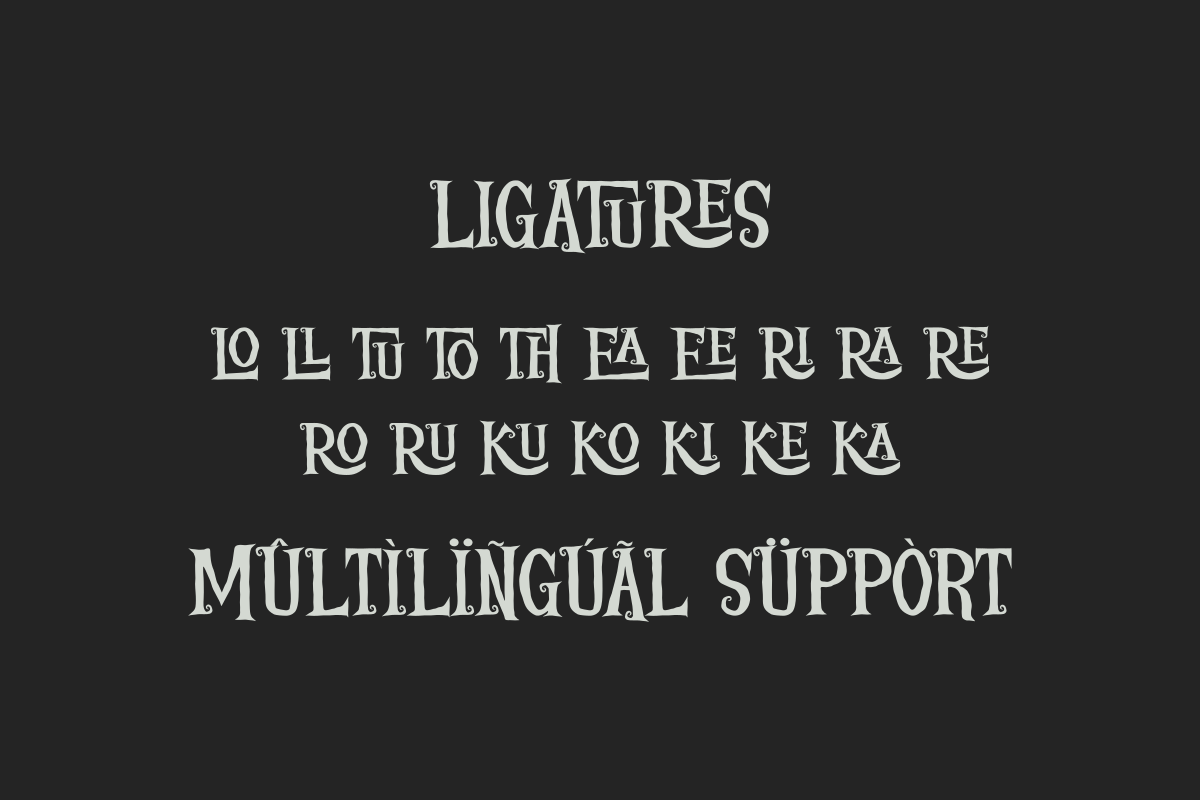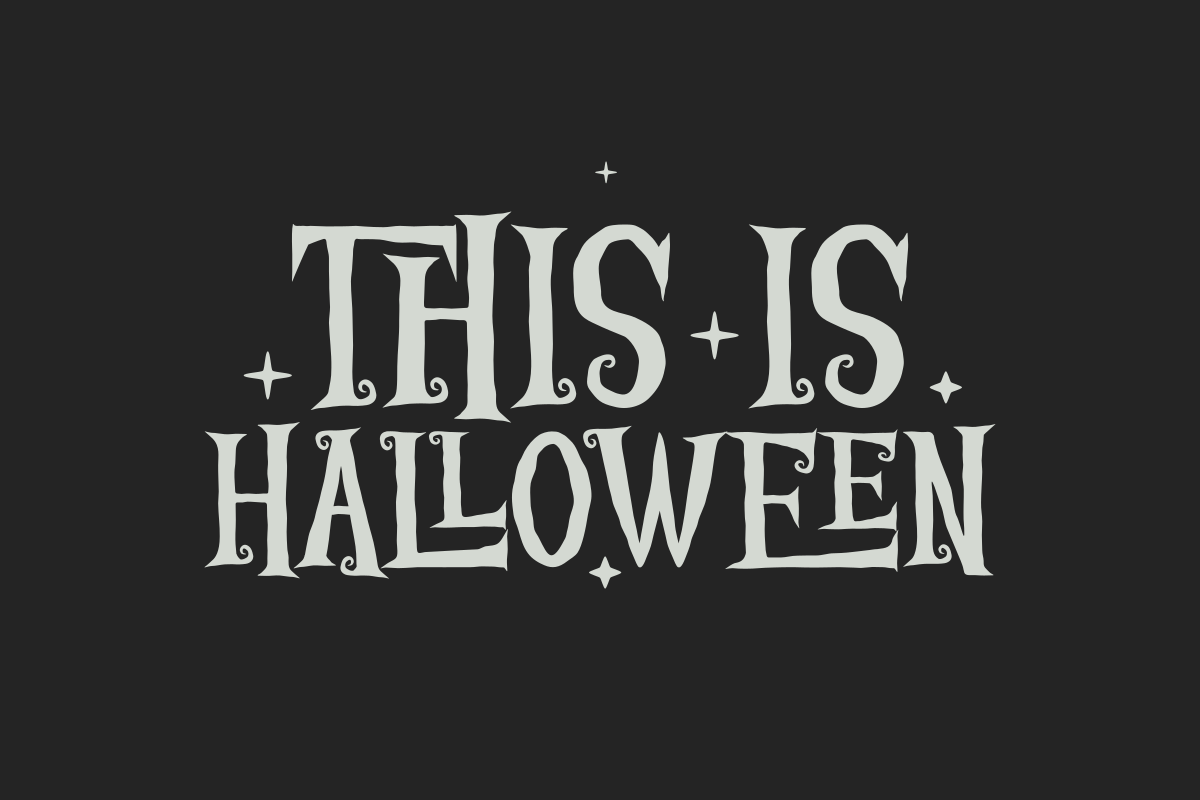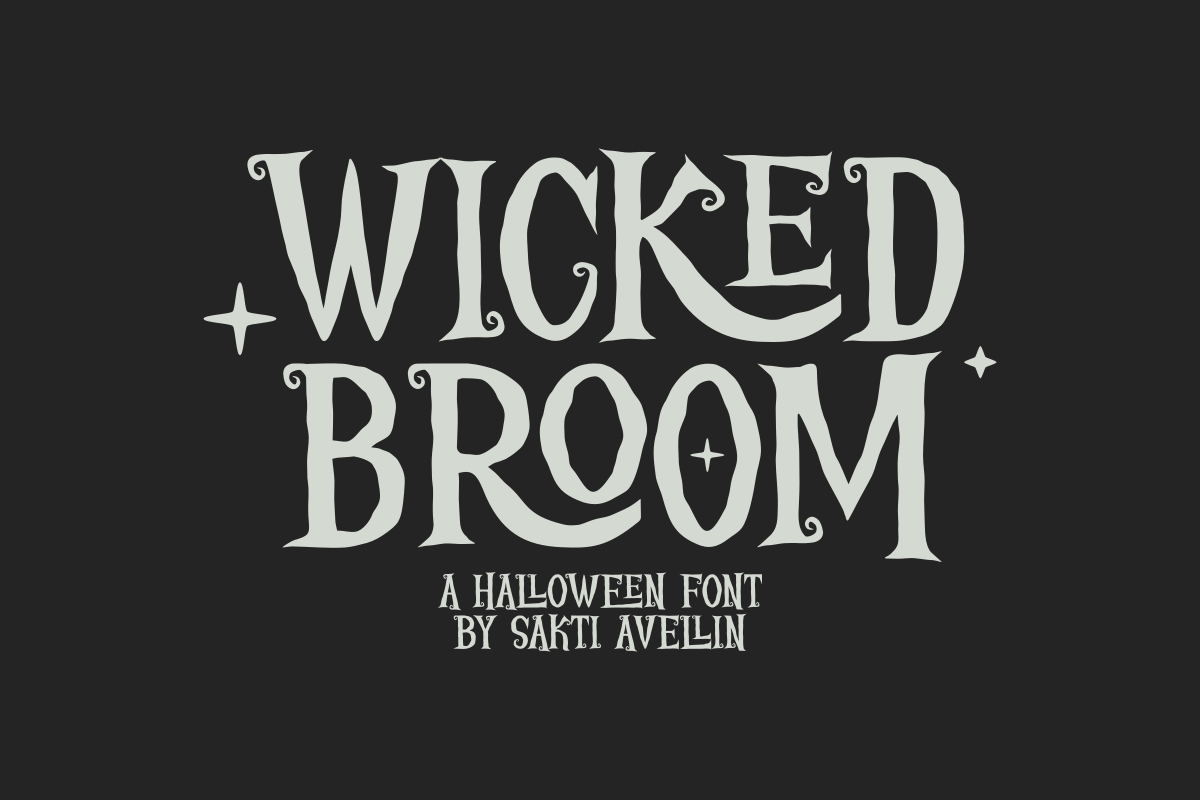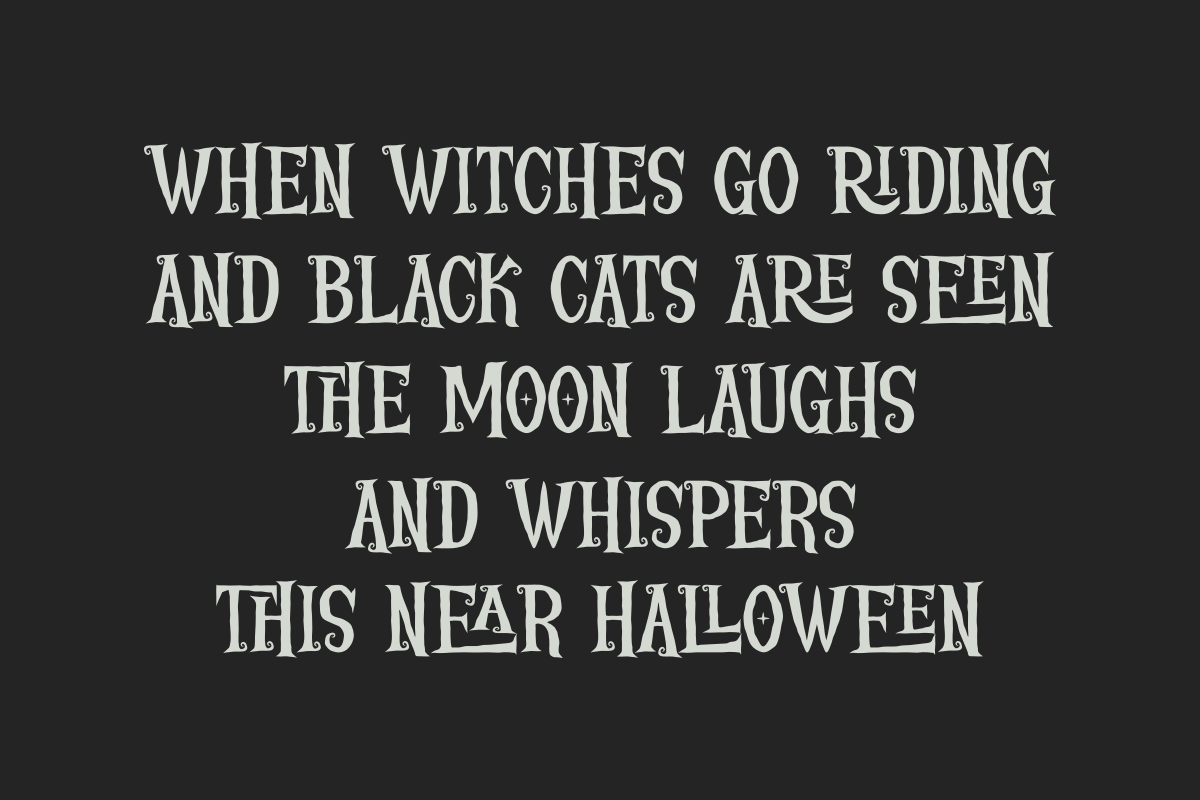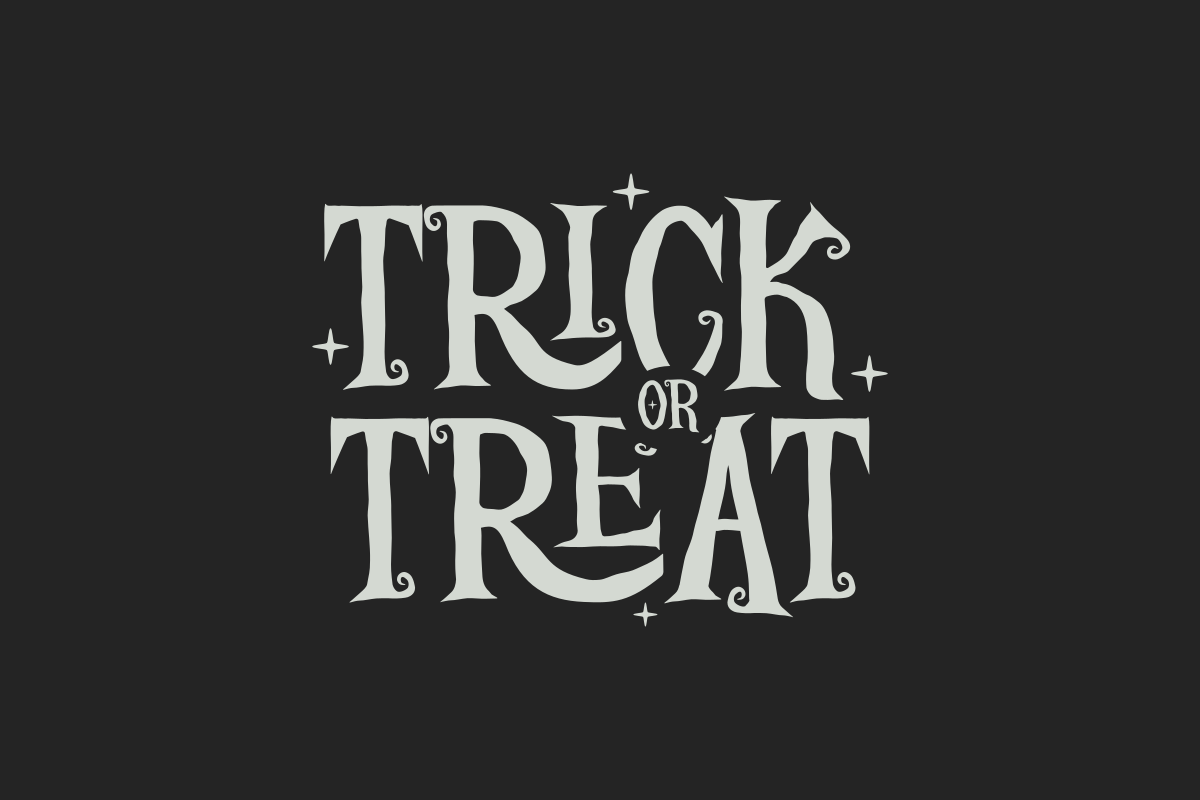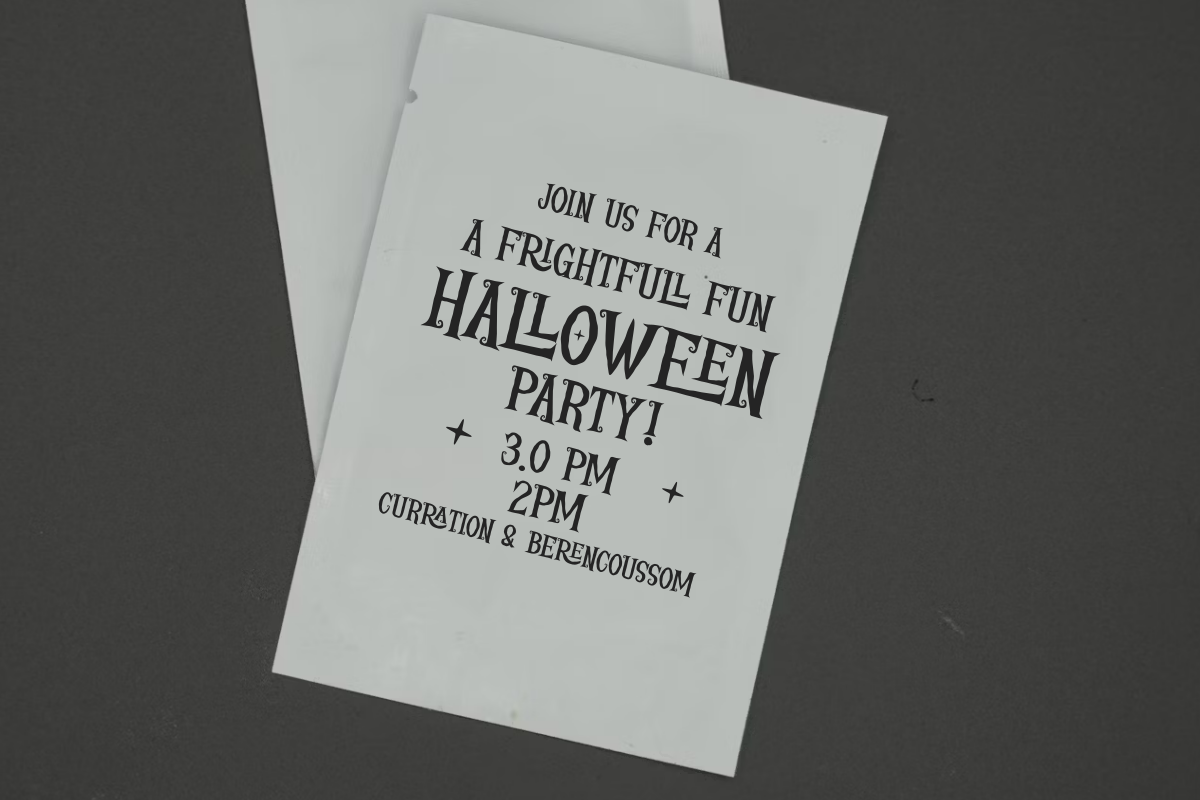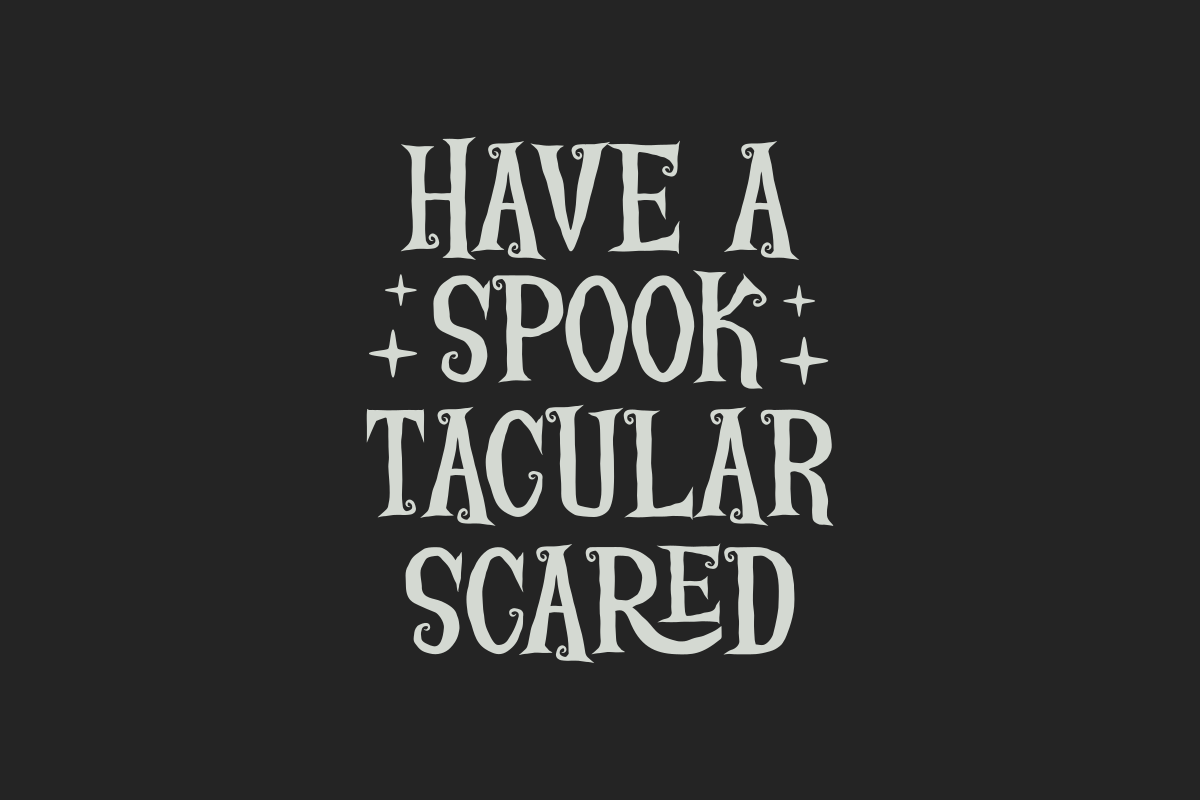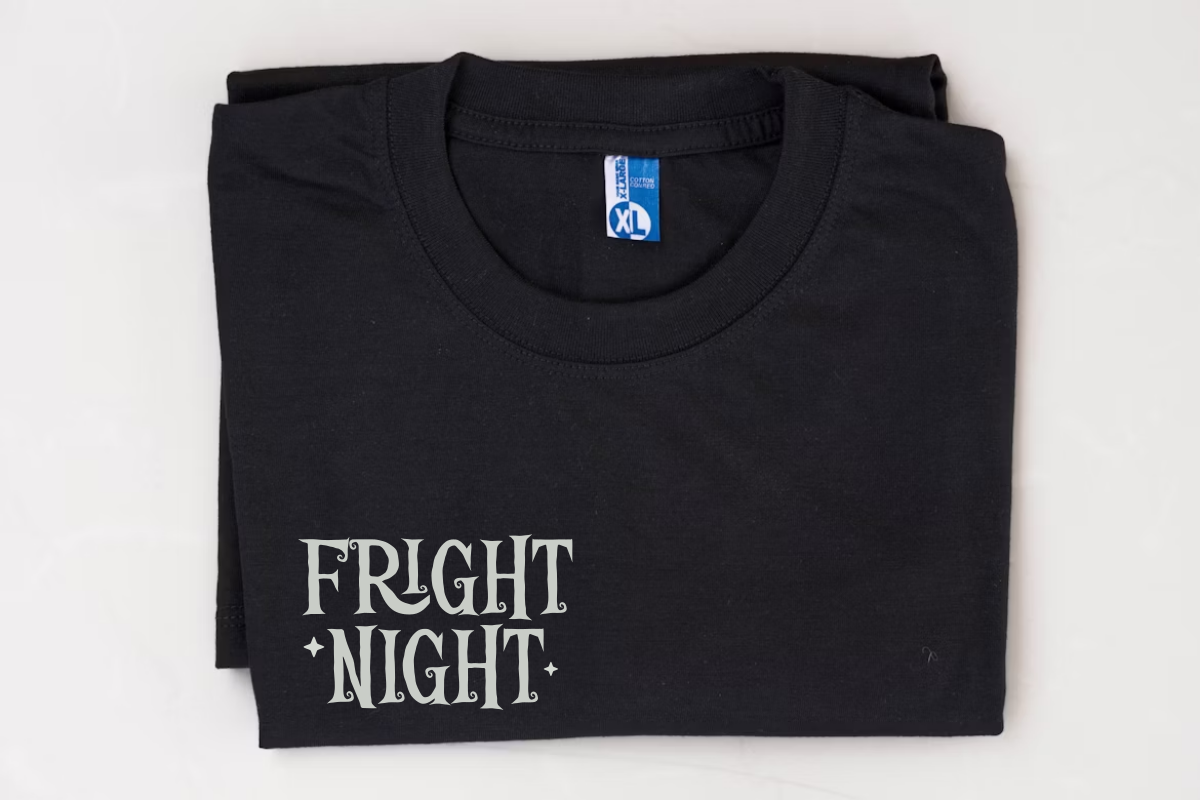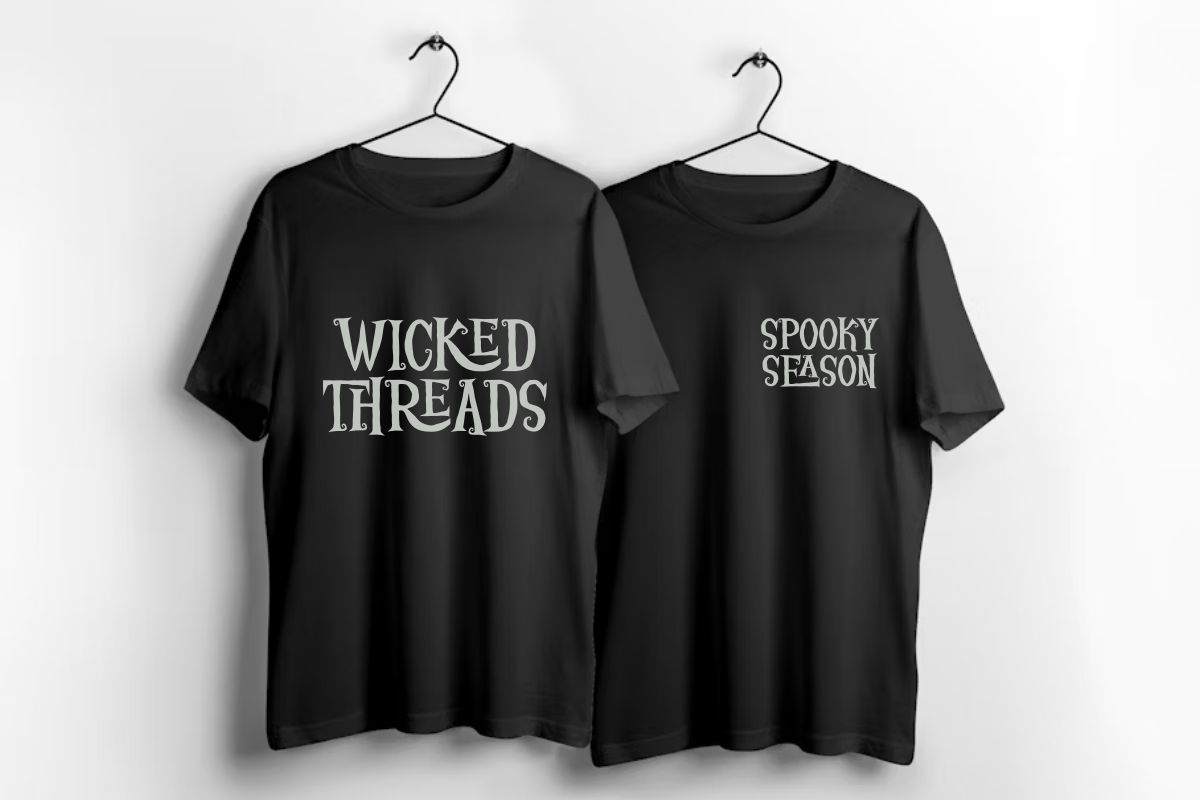
Wicked Broom - A Halloween Font
Wicked Broom is a dramatic, vintage-inspired decorative serif font that perfectly captures the gothic, spooky elegance of the Halloween season. This scary Halloween font features stylized, swirling serifs and a bold, unsettling form, making it essential for Halloween invitations, eerie seasonal branding, ghost-themed t-shirt designs, spooky posters, and frightening event graphics. Its striking and decorative style ensures it is a powerful display typeface for headlines, product packaging, and any project that needs a touch of high-end, sophisticated horror aesthetic. Cast a spell on your designs with this mesmerizing and dramatic horror font!